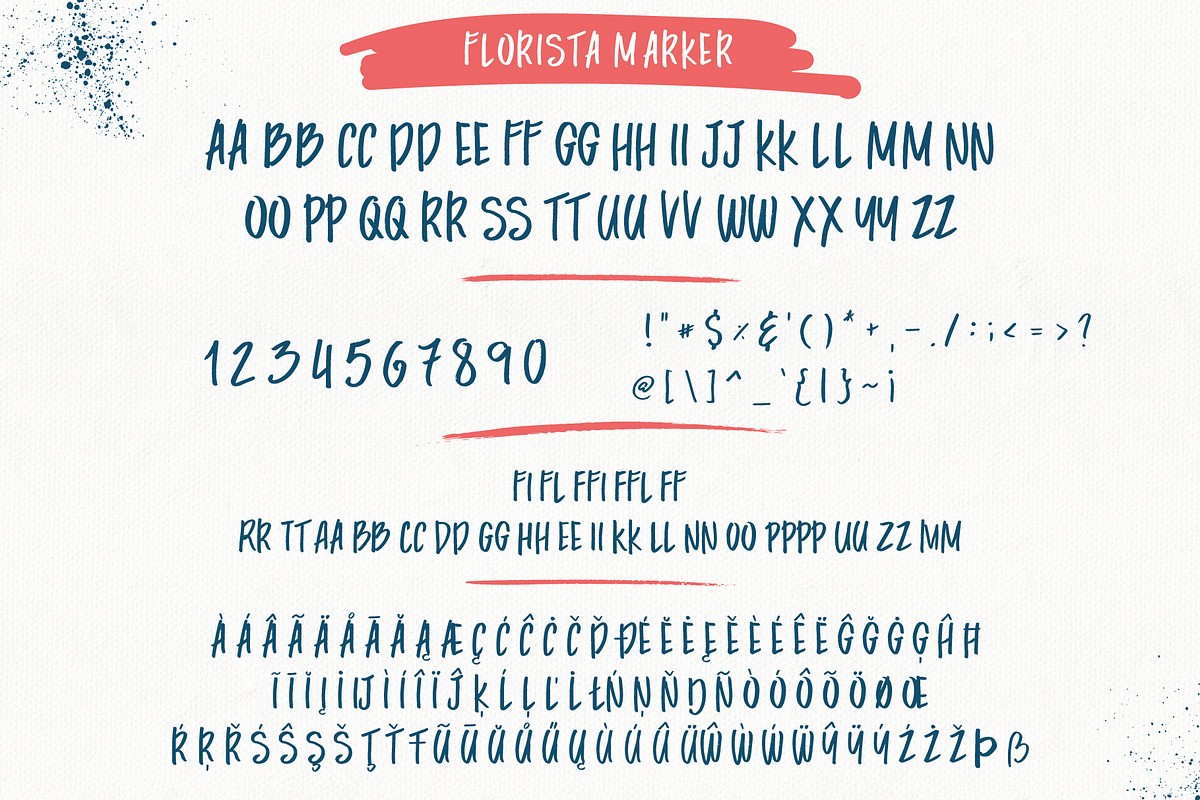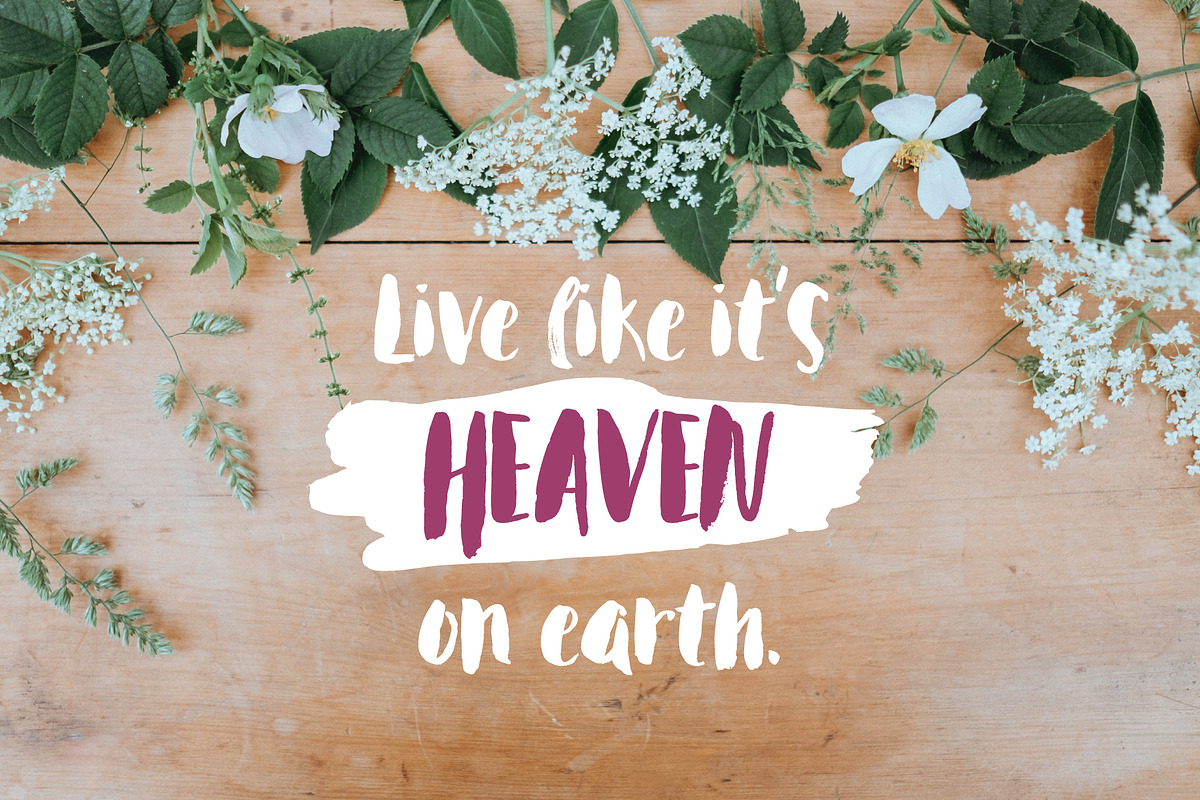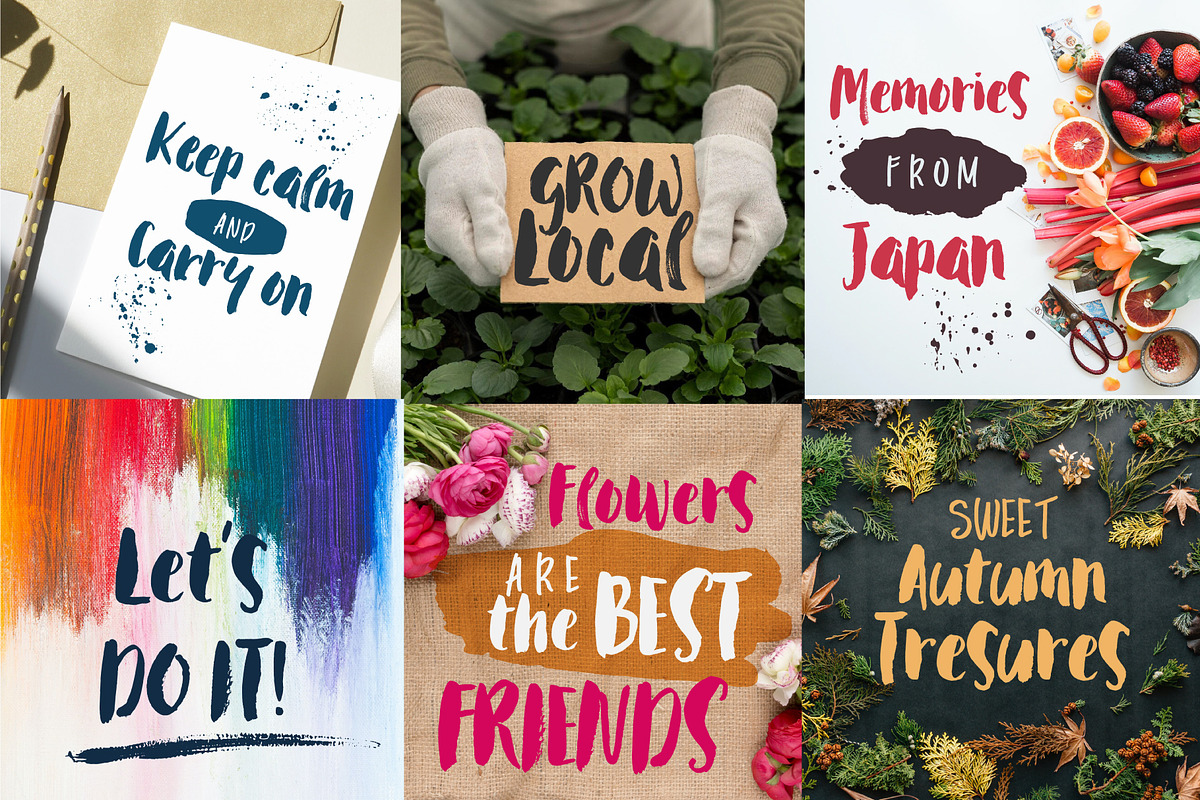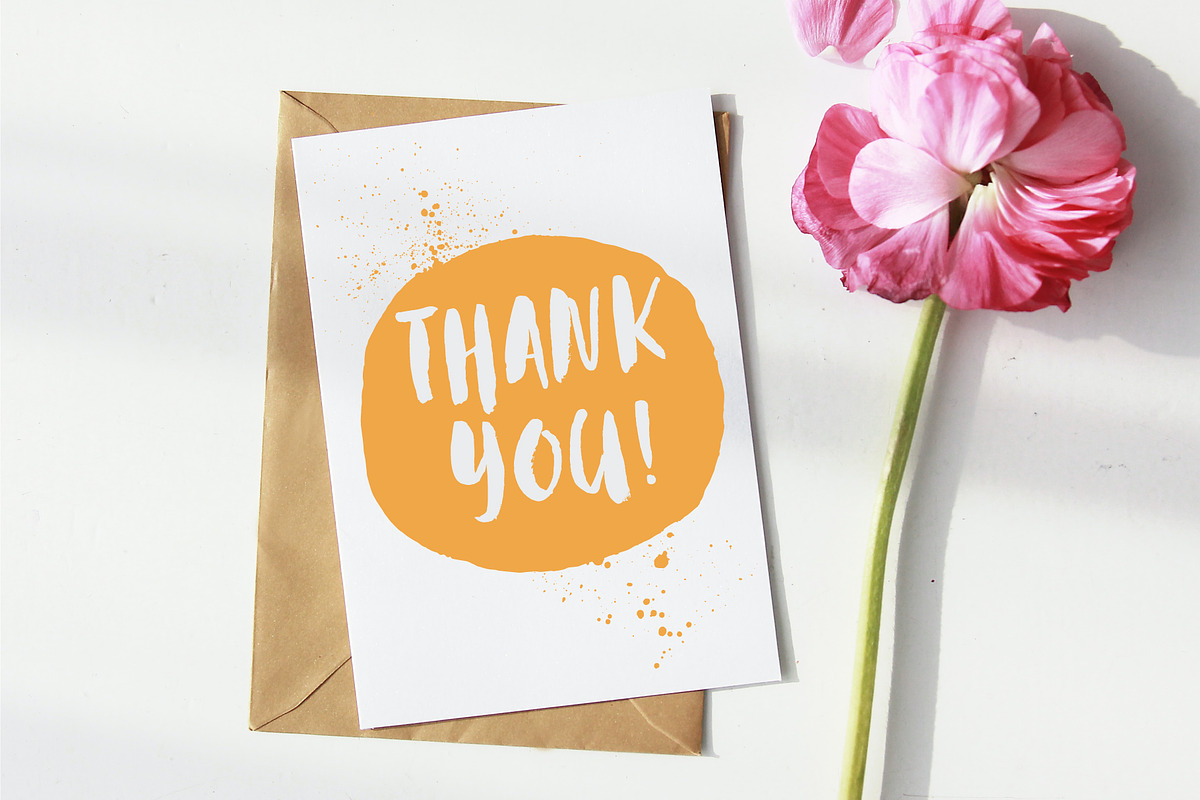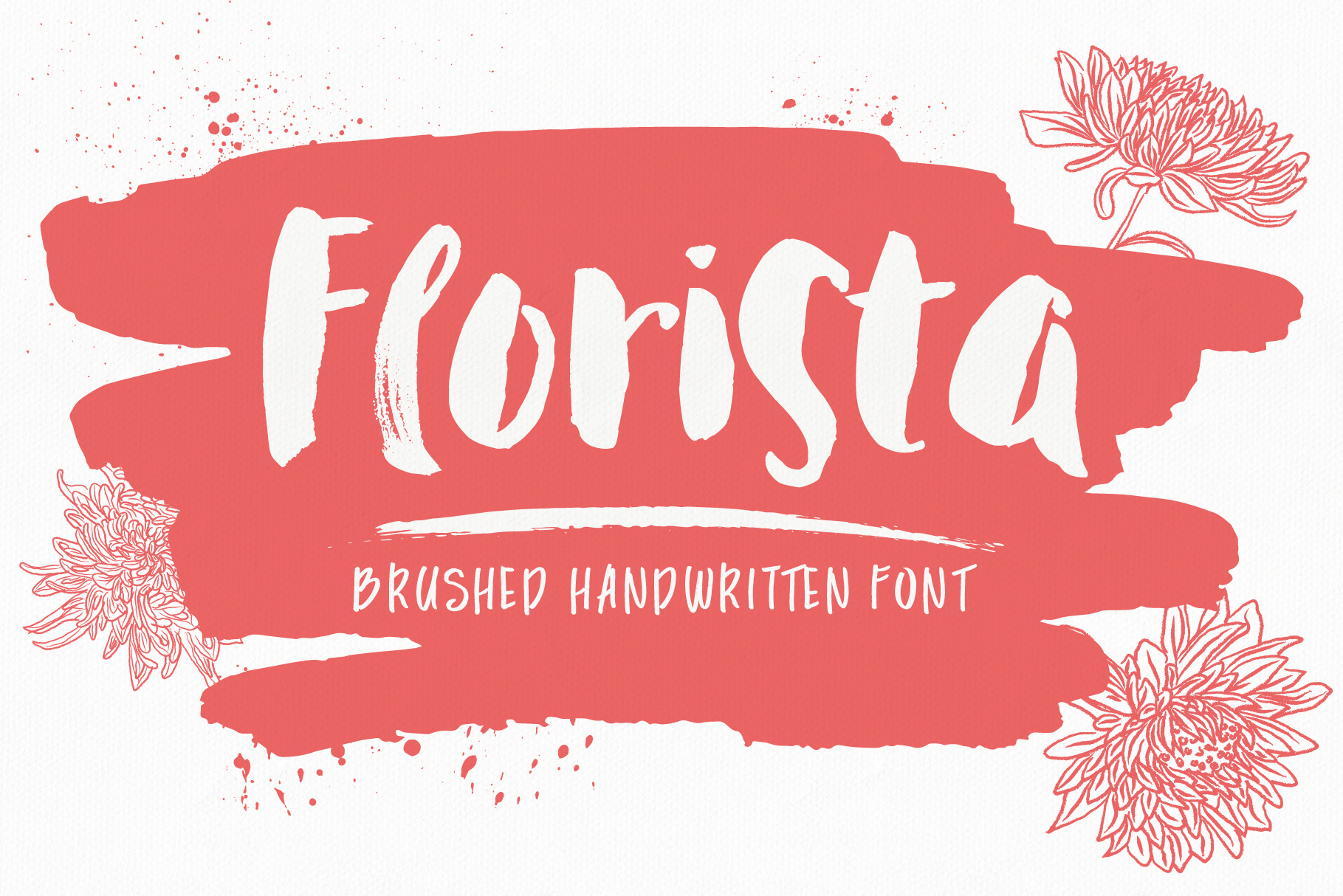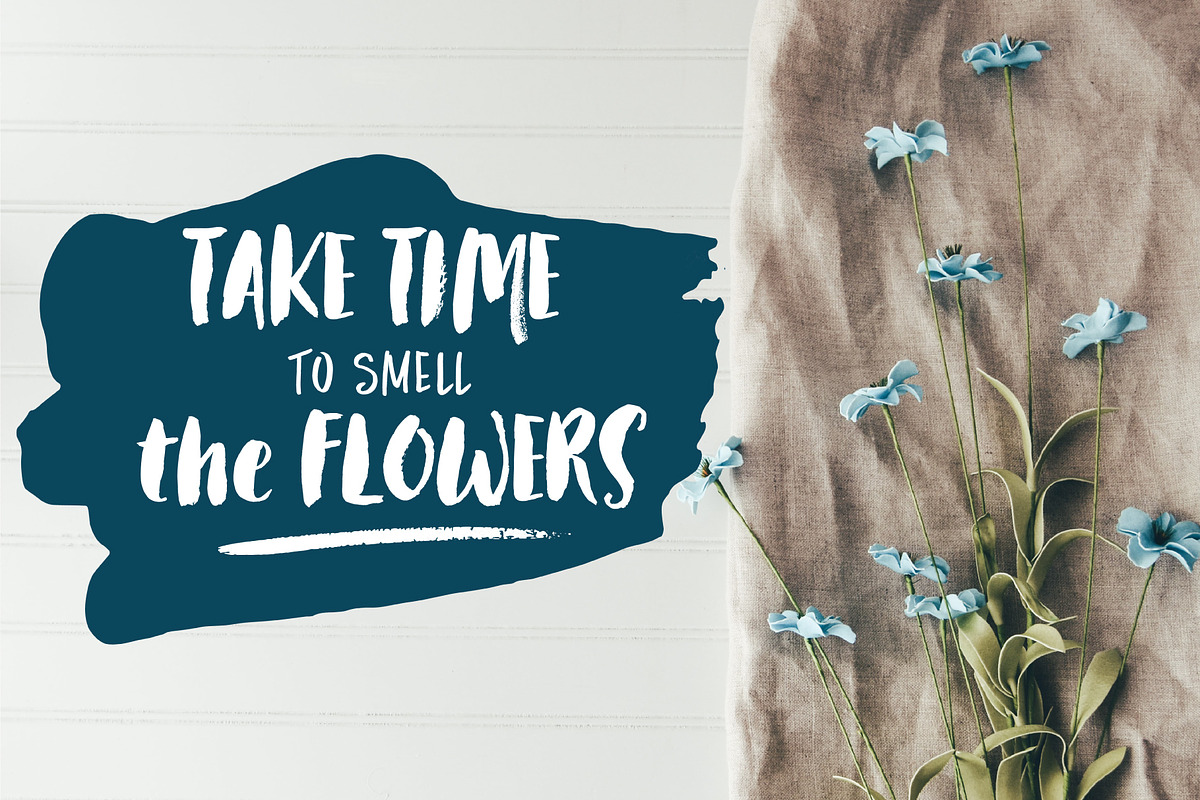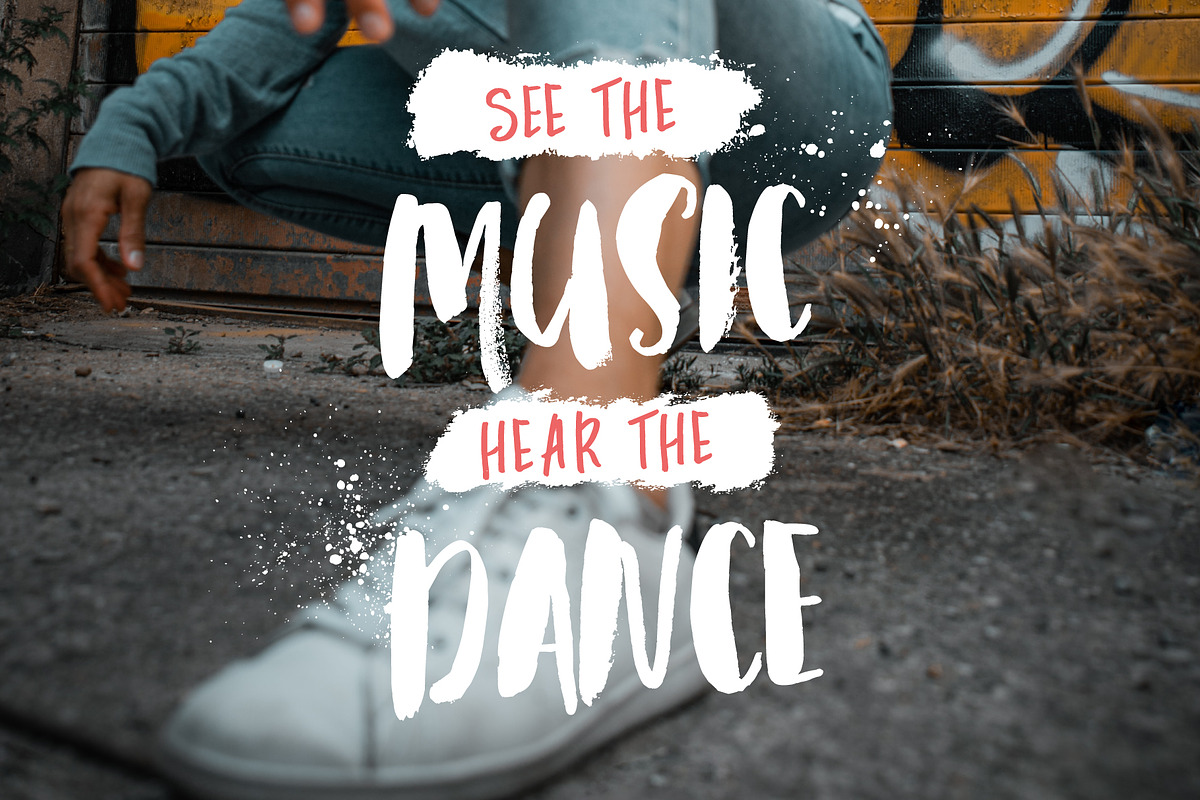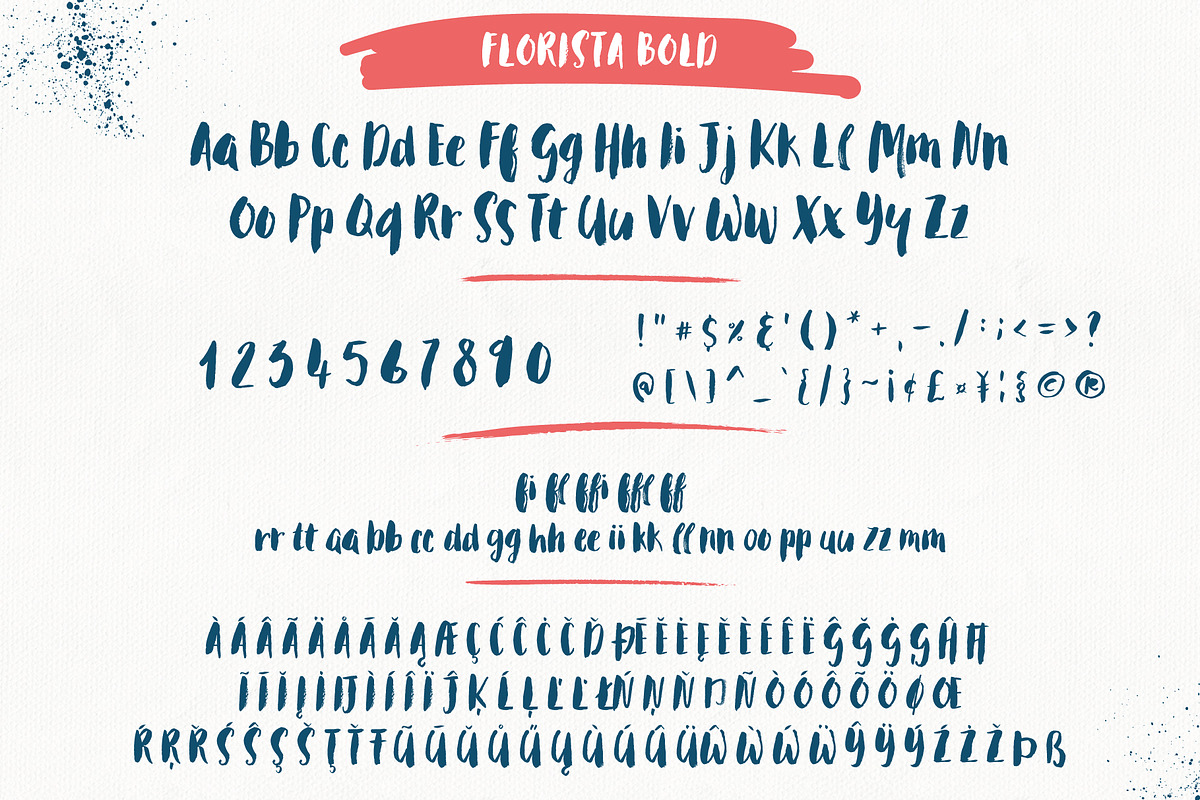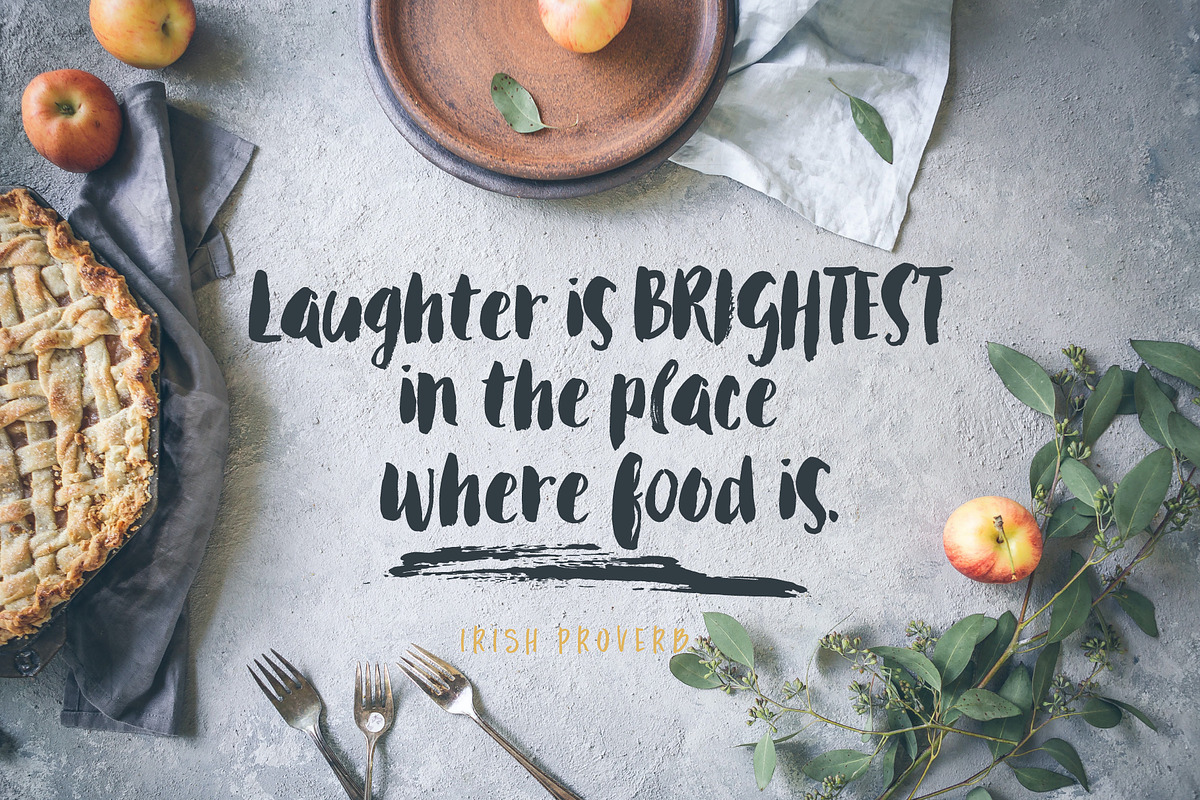
Florista Brushed Font Duo
Introducing Florista Brushed Font accompanied by Florista Marker Font.
Casual brushed hand lettered font perfect for using on greeting card, posters, book cover designs, branding, stationery and so much more.
Also included some splatters and graphic grunge elements to enhance your designs and make it look more brushy and inky.
Supporting international languages.